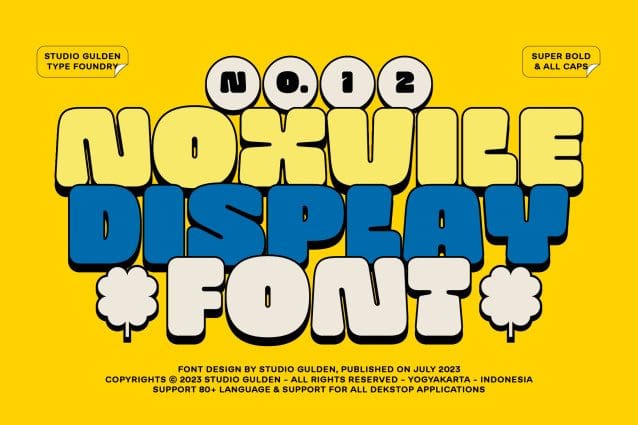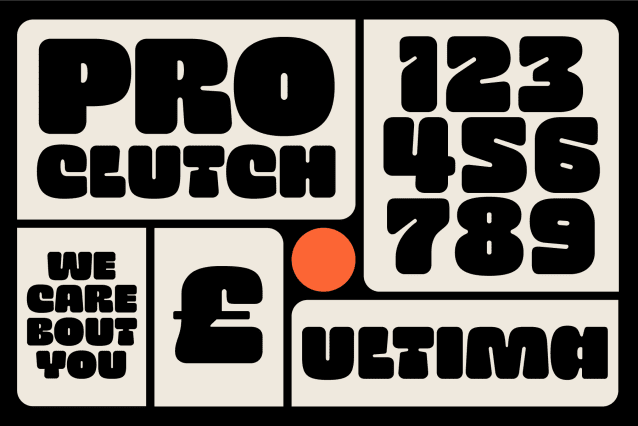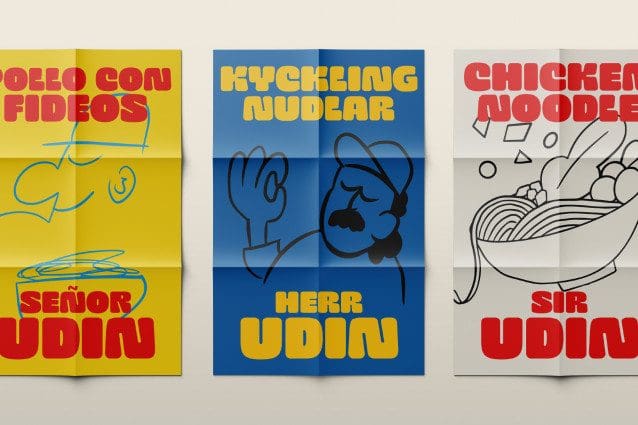
SG Noxvile Font
SG Noxvile Font – Ignite your creativity and let your message roar with Noxvile’s super bold style and captivating all caps specimen. Whether you’re designing eye-catching headlines, striking logos, or empowering social media posts, this font will make your words leap off the page and leave a lasting impression.
Designer Name: Studio Gulden